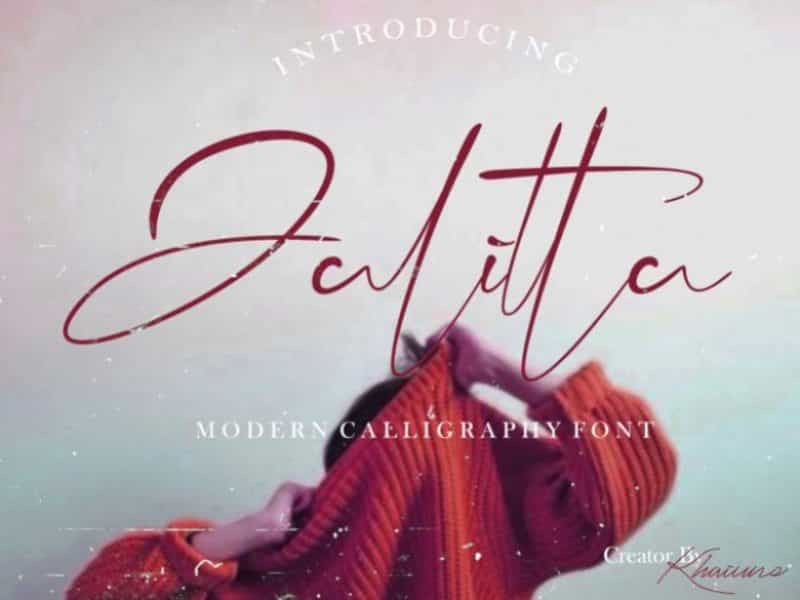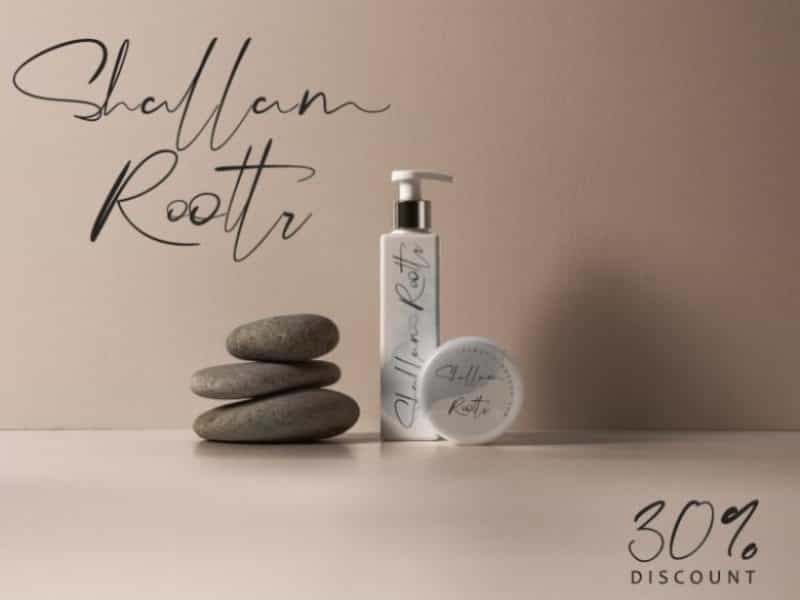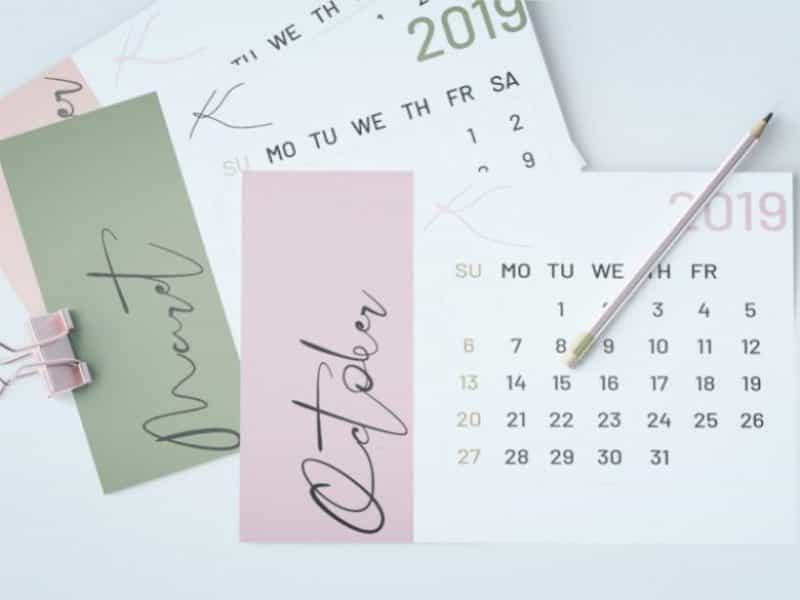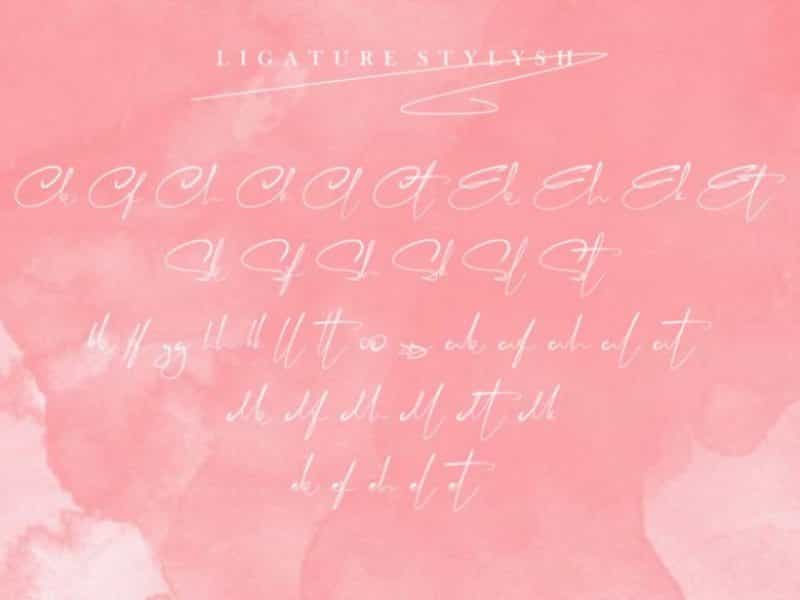
Jalitta is a new type face that is modern calligraphy font with the casual chic feel to it. Branding, wedding invitation or card printing as well as any kind of elegant card printing can best be achieved using this print.